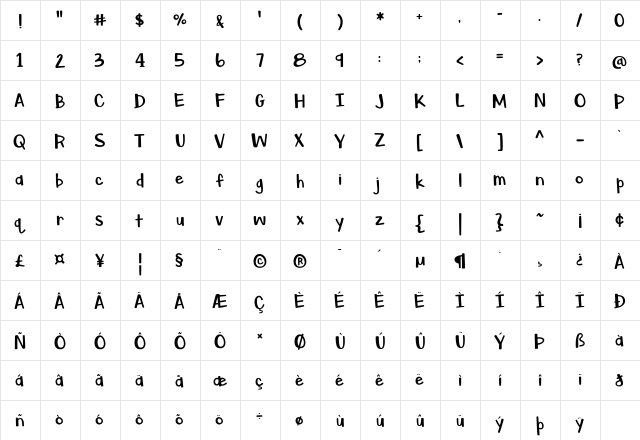
Asparagus Sprouts Regular
| Foundry | Brittney Murphy |
| Designer | Brittney Murphy Design |
Asparagus Sprouts is a composed and adaptable typeface that performs quietly and consistently across a wide range of design contexts.